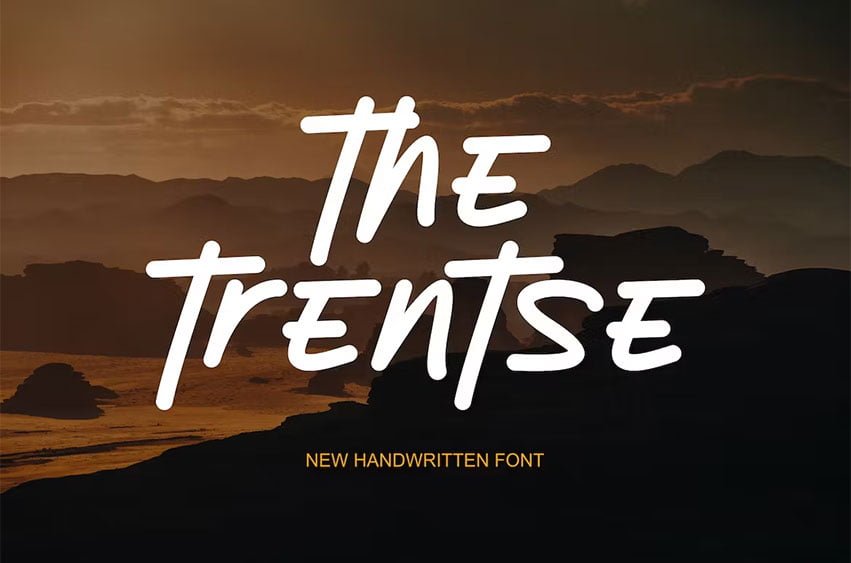
The Trentse Font Modern Font is a bold and authentic display font. The font is suitable for any branding project like logo, esport, and many more. outstanding in a wide range of contexts.